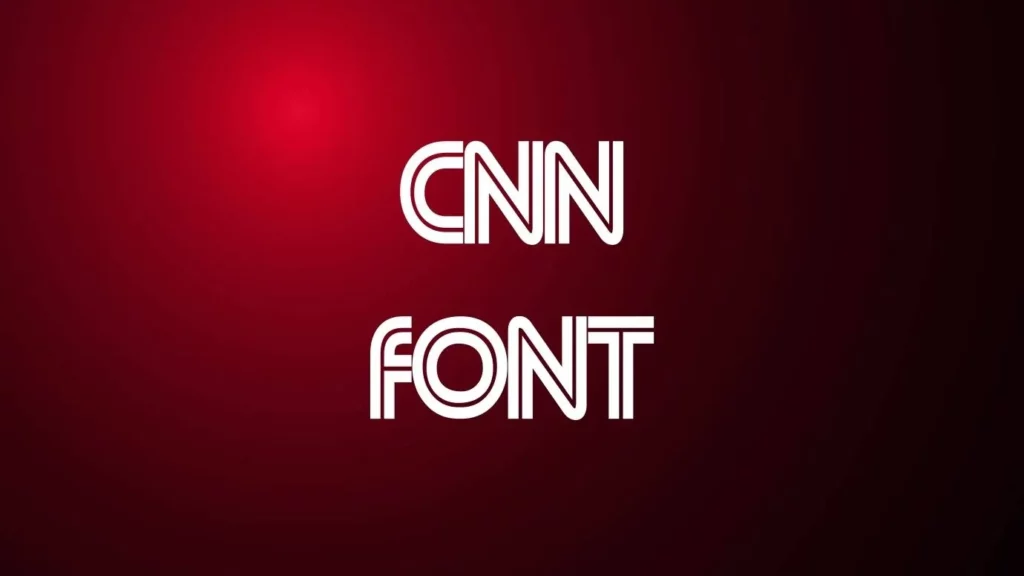
CNN, specifically, is one of the major English-language news channels established by Ted Turner in 1980. The symbol of CNN may be a combination of three letters of CNN in typical ruddy, with a white line running through the center of the letters. The symbol was custom made and it has been used since its establishment. CNN Font style that’s accessible for you to deliver the content is CNN planned by Ray Larabie.
This typeface symbol gives our logos and plans an attractive look. The utilization of this typeface is so worth it can be seen as awesome in looks.
View of CNN Font
This classy textual style has added typescripts for universal clients. That’s why this text style pulls in the consideration of your clients and the attracting of people to your ventures. It is well renowned worldwide by the CSS Family. You can also use it with frontage sand serif font. Its generator tool allows you to form numerous plans utilizing it.
Use of CNN Font
The typeface has been planned with customization and still running on TV since its creation. You might have seen this channel as well as its symbol over the TV.
| Name | CNN Font |
| Style | Logo |
| Designer | Ray Larabie |
What kind of CNN Font is it?
This typeface has a place in the symbol text style family. It comprises four classic styles that make it idealized for different designs.
Where can I use CNN Font?
Due to its sharp and clean highlights, this typeface is utilized for numerous plans like designing magazines, banners, advertisements, and so on.
Who is the producer of CNN Font?
This classic text style was created by Beam Larabie. This typeface has a place in the symbol typeface since it is utilized for symbol plans.